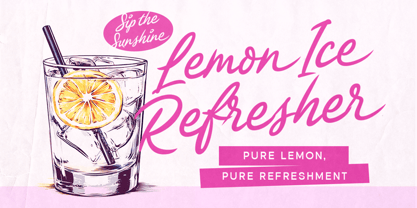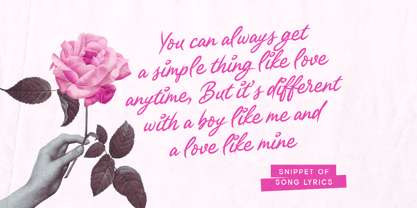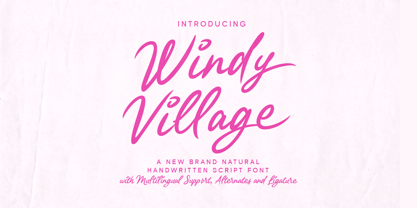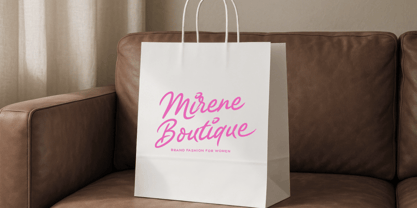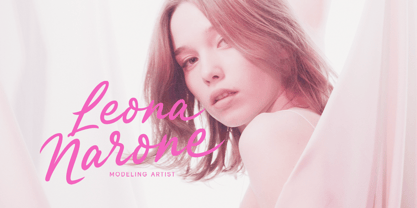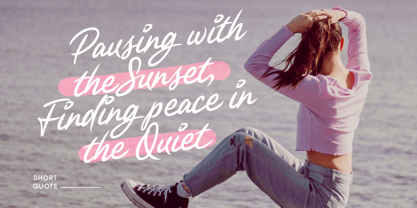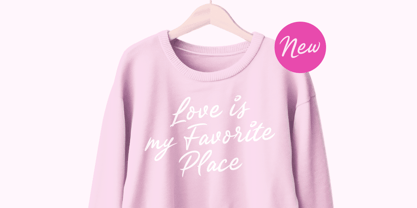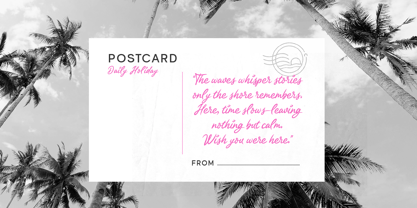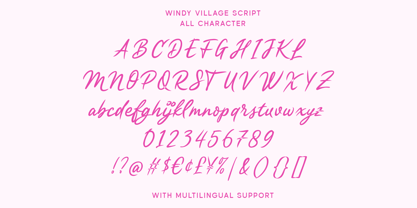
Windy Village
by Letterhend
The Windy Village Font Family was designed by Hendry Juanda and published by Letterhend. Windy Village contains 1 styles. More about this family
Windy Village is a lively handwritten script font that flows with natural movement and effortless charm. Its smooth curves and slightly bold strokes create a sense of spontaneity and warmth, perfect for branding, packaging, invitations, and social media graphics. The organic letterforms give a modern yet friendly personality, making it suitable for creative projects that want to convey joy, freshness, and authenticity. Features : Uppercase & lowercase Numbers and punctuation Alternates & Ligatures Multilingual Support PUA encoded
Designers: Hendry Juanda
Foundry: Letterhend